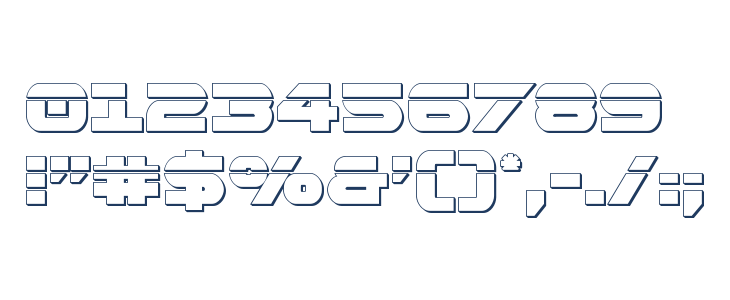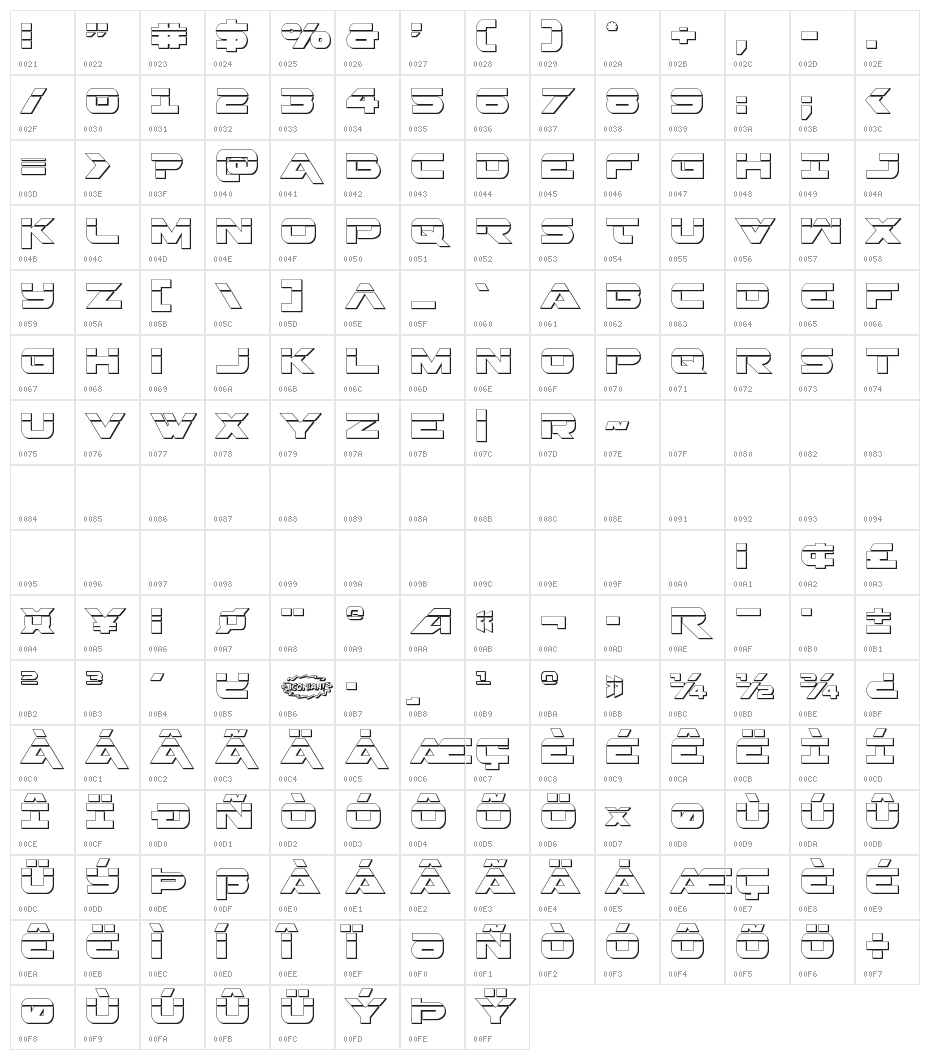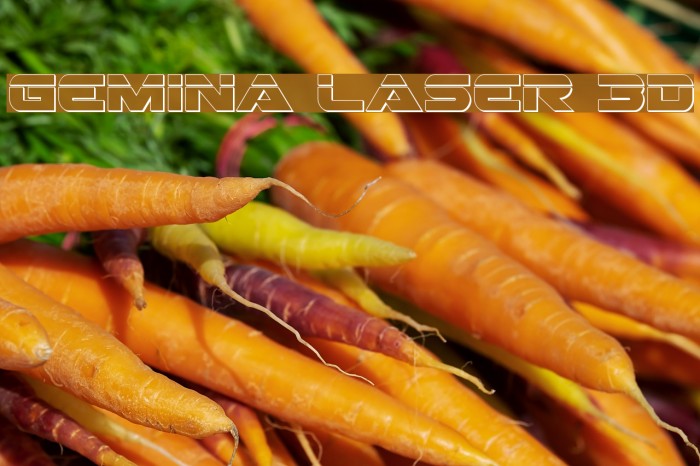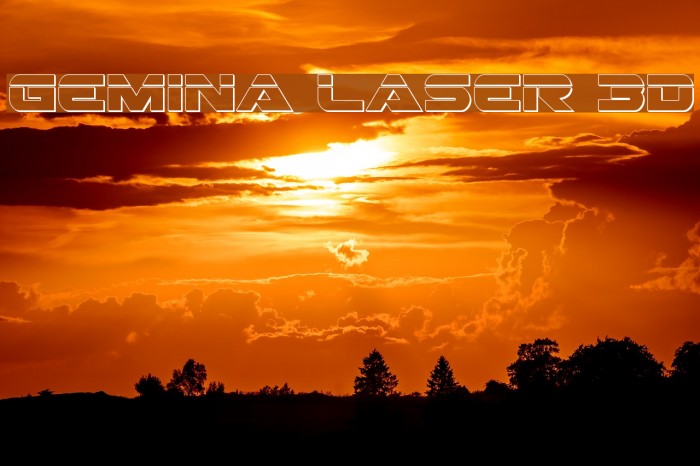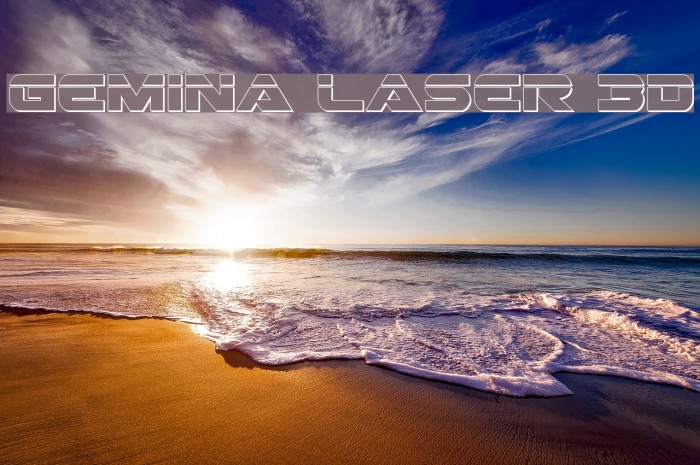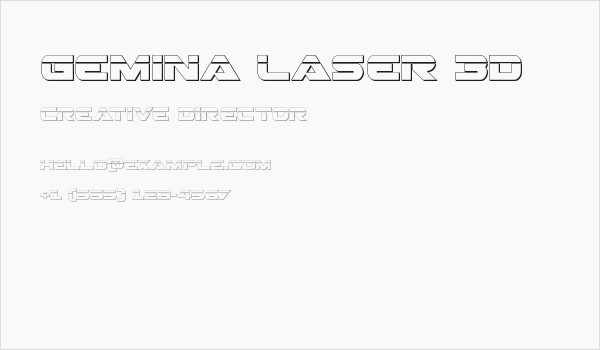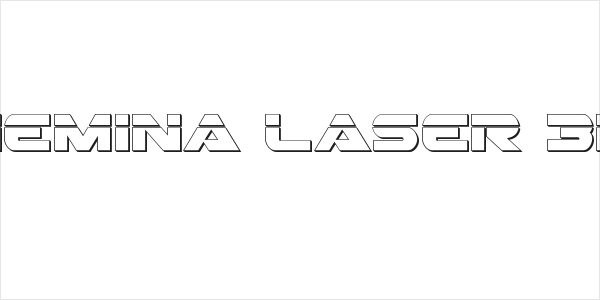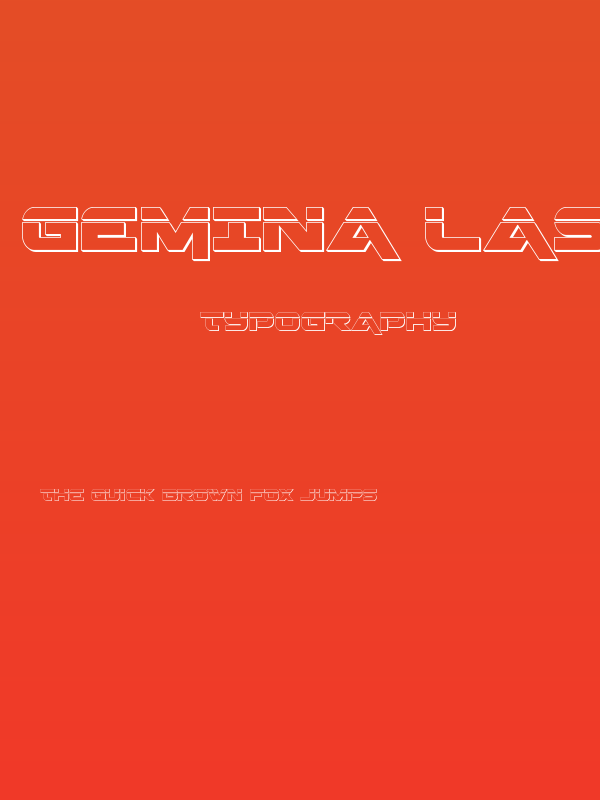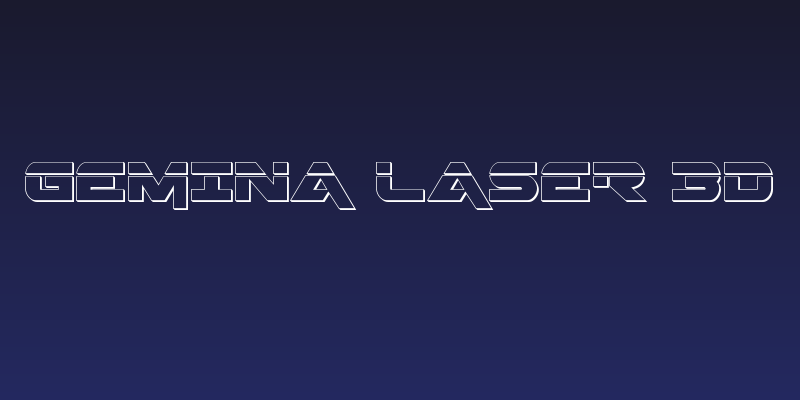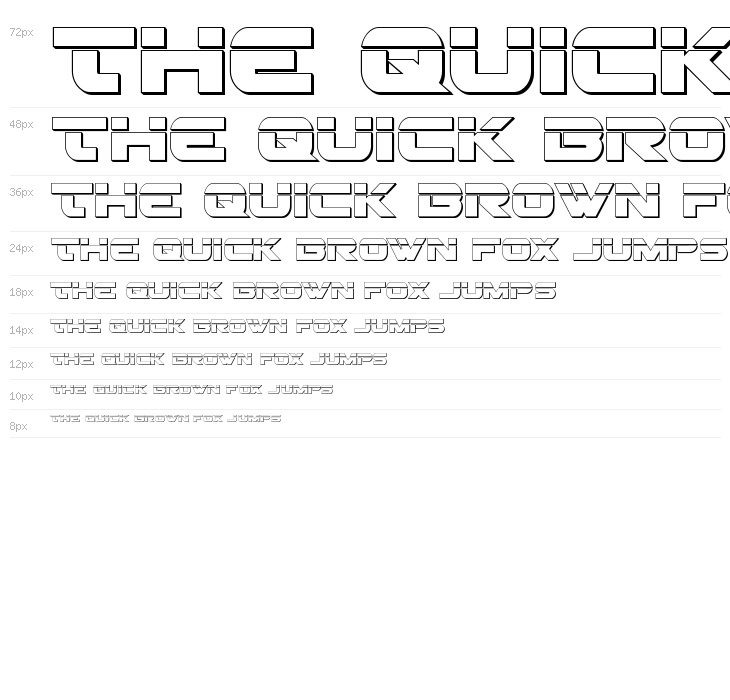
Gemina Laser 3D Font
Gemina Laser 3D Description
This font features a futuristic and geometric design, characterized by its bold, angular lines and three-dimensional appearance. Each character is constructed with a distinct outline that gives it a laser-cut effect, creating a sense of depth and modernity. The uppercase and lowercase letters maintain a consistent style, with sharp edges and a uniform thickness that enhances readability while maintaining a unique aesthetic. The numbers and special characters follow the same design principles, ensuring a cohesive look across all glyphs. This font is ideal for projects that require a modern, tech-inspired feel, such as digital interfaces, gaming titles, or sci-fi themed designs.